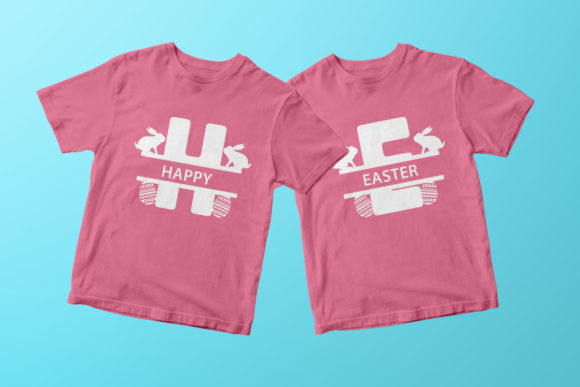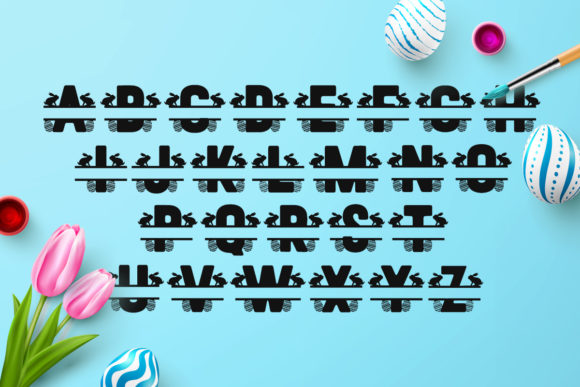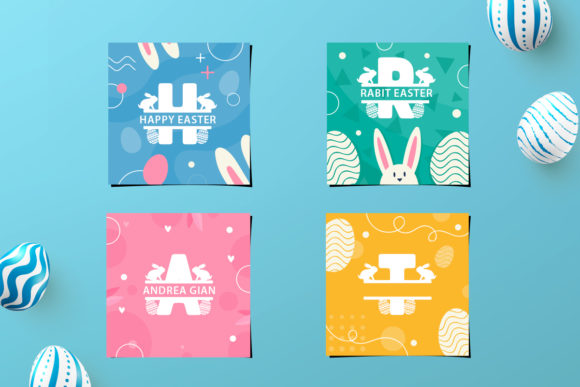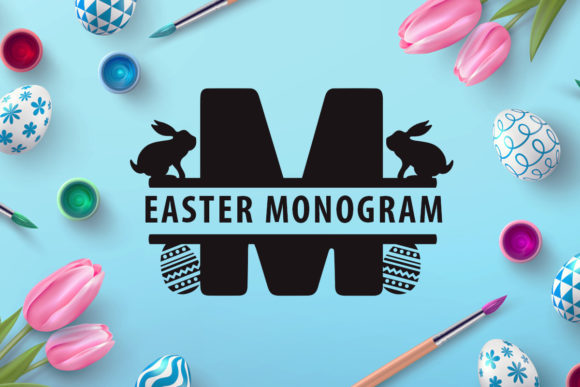
Easter Font: The Perfect Addition to Your DIY Projects
Easter is just around the corner, and with it comes the opportunity to get creative with your DIY projects. Whether you’re a designer, crafter, or simply someone who loves to get hands-on, having the right font can make all the difference. That’s where Easter Font comes in – a modern decorative font that’s been carefully handcrafted to become a true favorite.
What is Easter Font?
Easter Font is a unique and gorgeous easter theme font that’s perfect for bringing any DIY project to life. Its modern and decorative style makes it ideal for a wide range of applications, from crafting and scrapbooking to graphic design and digital art. With its carefully handcrafted design, Easter Font is sure to add a touch of elegance and sophistication to any project.
Key Features of Easter Font
- Handcrafted design: Easter Font has been carefully crafted to ensure that every letter and character is unique and visually appealing.
- Modern and decorative style: The font’s modern and decorative style makes it perfect for a wide range of DIY projects, from traditional crafts to digital art.
- Easter theme: The font’s Easter theme makes it ideal for seasonal projects, such as Easter cards, decorations, and gift tags.
Why Choose Easter Font?
There are many fonts available online, but Easter Font stands out from the rest. Here are just a few reasons why:
- Unique design: Easter Font has a unique and eye-catching design that’s sure to make your projects stand out.
- High-quality: The font is made from high-quality materials, ensuring that it looks great in any project.
- Versatile: Easter Font can be used in a wide range of projects, from digital art to traditional crafts.
- Easy to read: Despite its decorative style, Easter Font is easy to read, making it perfect for projects that require a lot of text.
Using Easter Font in Your DIY Projects
Easter Font is incredibly versatile and can be used in a wide range of DIY projects. Here are just a few ideas to get you started:
- Easter cards and invitations: Use Easter Font to create beautiful and unique Easter cards and invitations.
- Scrapbooking: Add a touch of elegance to your scrapbook pages with Easter Font.
- Digital art: Use Easter Font to add a decorative touch to your digital art projects.
- Crafting: Use Easter Font to create custom labels, gift tags, and other craft projects.
Tips for Getting the Most Out of Easter Font
Here are a few tips for getting the most out of Easter Font:
- Experiment with different colors: Easter Font looks great in a wide range of colors, so don’t be afraid to experiment and find the perfect color for your project.
- Use it with other fonts: Easter Font pairs well with other fonts, so try using it with a complementary font to create a unique look.
- Pay attention to spacing: Make sure to pay attention to the spacing between letters and words to ensure that your project looks its best.